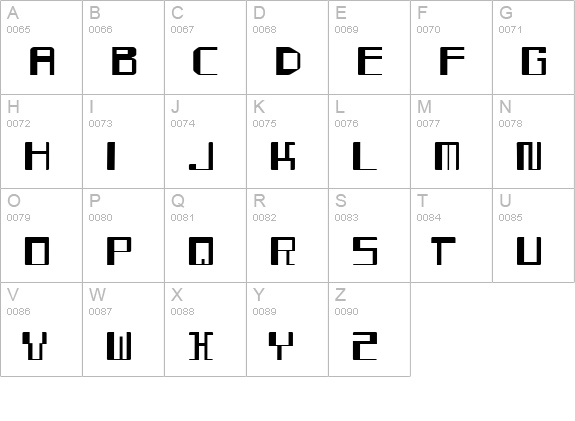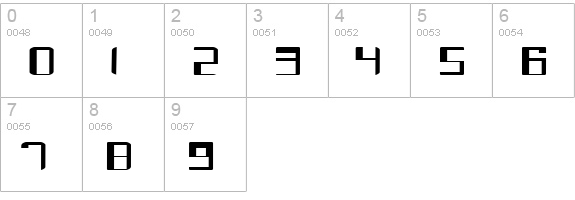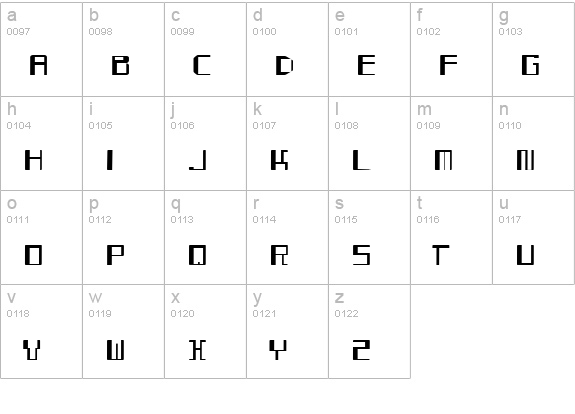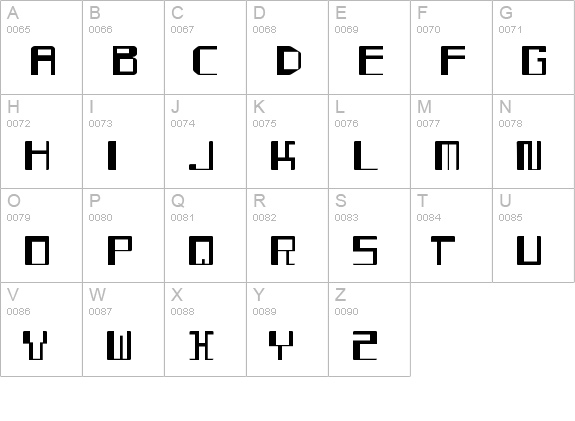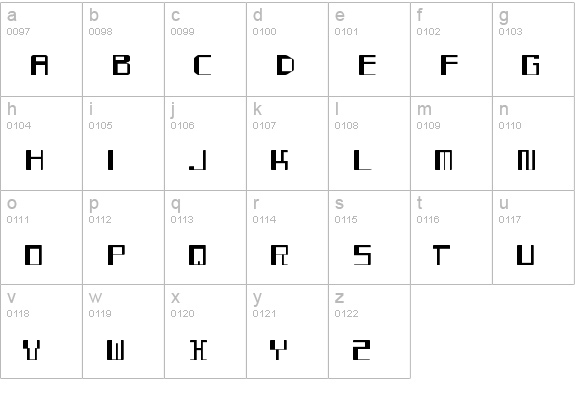
Mayday Font Details
The Mayday font is a versatile and stylish typeface designed for a wide range of design projects. With its bold and modern aesthetic, Mayday is perfect for creating eye-catching headlines, posters, logos, and more. This unique font features clean lines, distinct characters, and a contemporary feel that will make your design stand out. What's even better is that Mayday font is available for free download at FontsMarket.com. This means you can easily access this stunning font without any cost, making it a valuable addition to your design toolkit. Whether you're a graphic designer, illustrator, or just someone looking to add a touch of sophistication to your projects, Mayday font is sure to impress. Download it today and elevate your design work to the next level!